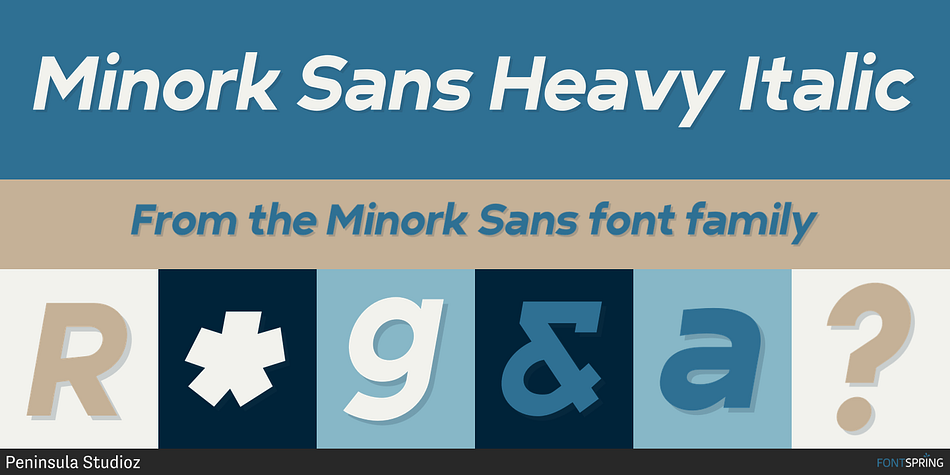
Minork Sans Heavy Italic
Minork Sans is a sans serif font family. This typeface has twenty-four styles and was published by Peninsula Studioz.
Minork Sans is a minimal, sleek, and stylish geometric sans typeface meticulously crafted for years. Tailored to elevate all your design projects, from UI design and app design to web design, branding, posters, magazines, infographics, packaging, and beyond. With its clean and solid strokes, Minork Sans effortlessly radiates the minimal aesthetic of contemporary design and modern sophistication. Boasting 12 font weight variations, Minork Sans excels in delivering a multi-level content hierarchy in your design, ensuring your value is communicated clearly and easily.
KEY FEATURES:
1. Extended language support
2. Small capitals
3. Mathematical symbols
4. Currency symbols
5. Alternate stylish letters
6. Directional arrows
7. Fraction support
8. Special ligatures
9. Numerator and Denominator support
Style Heavy Italic
Foundry Peninsula Studioz